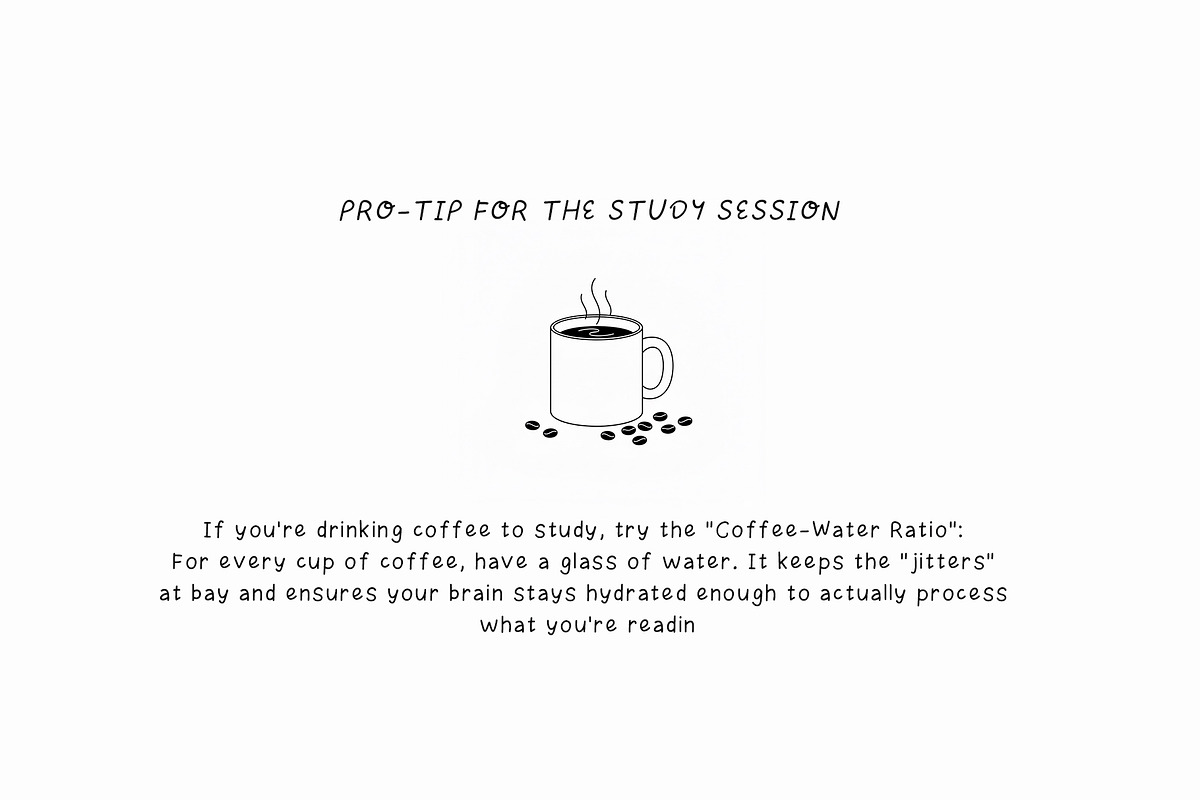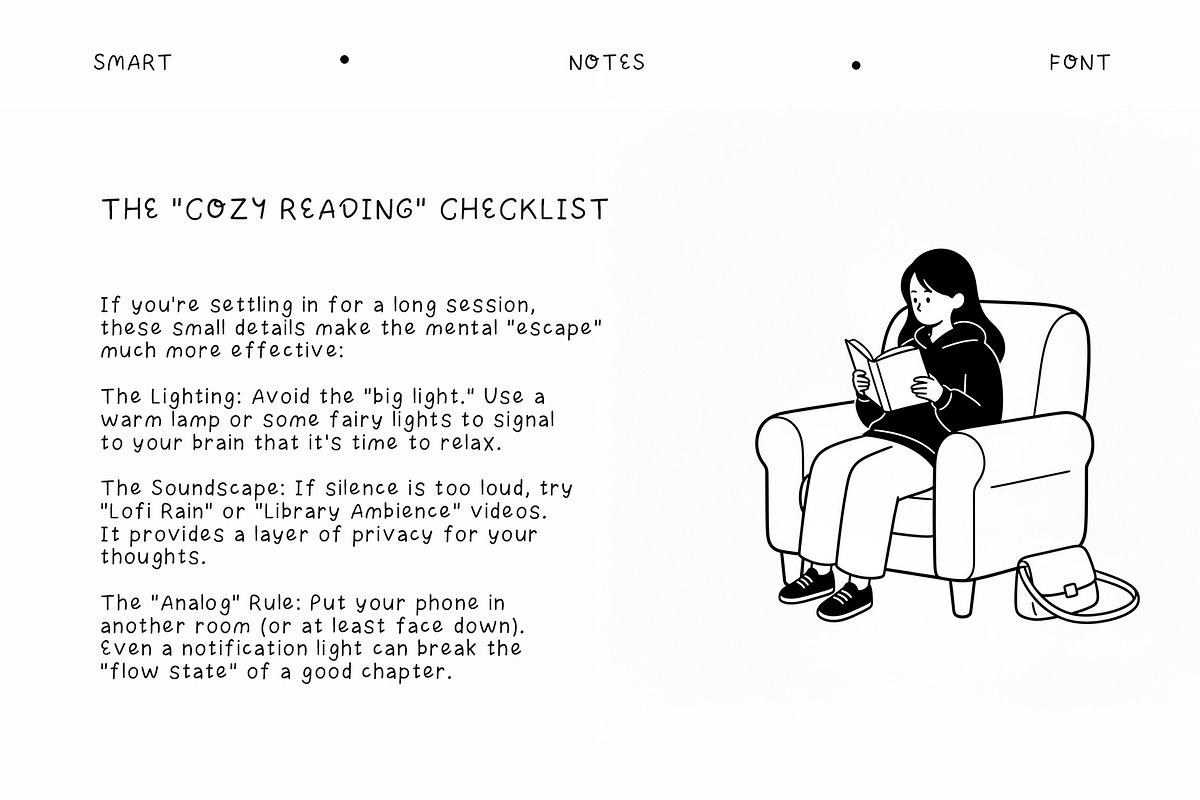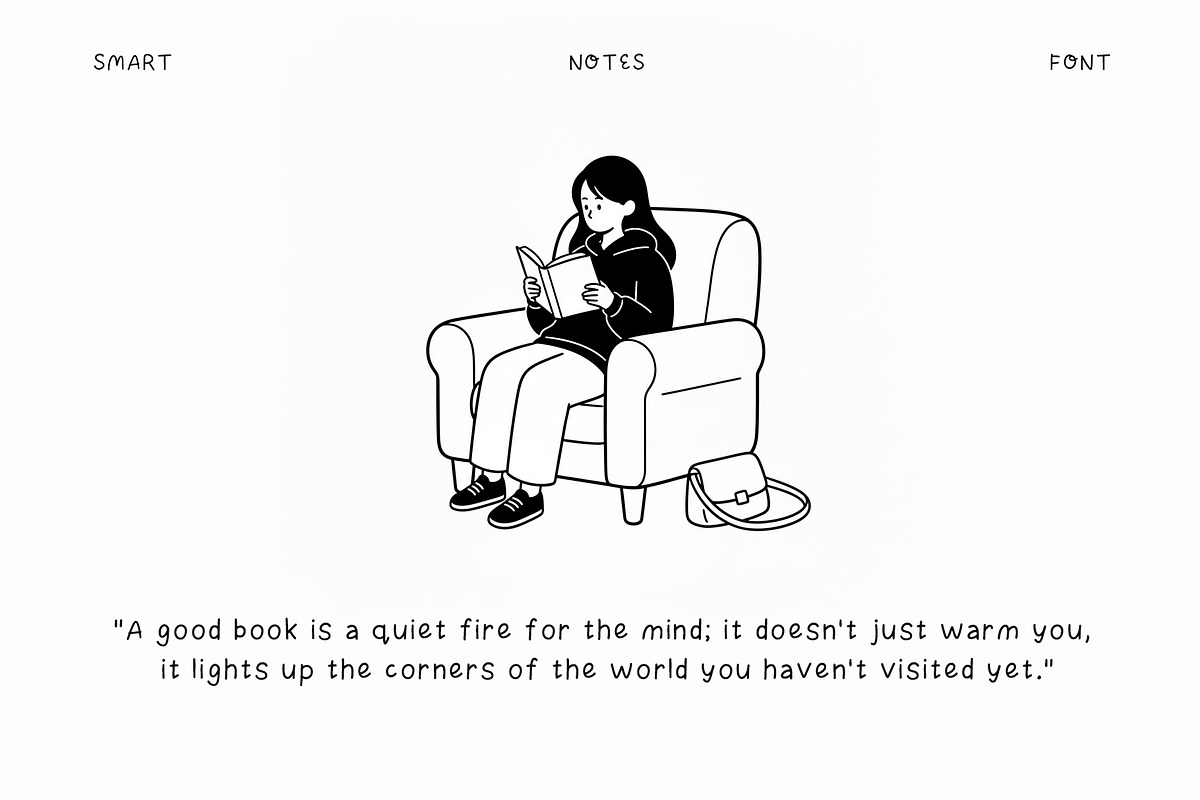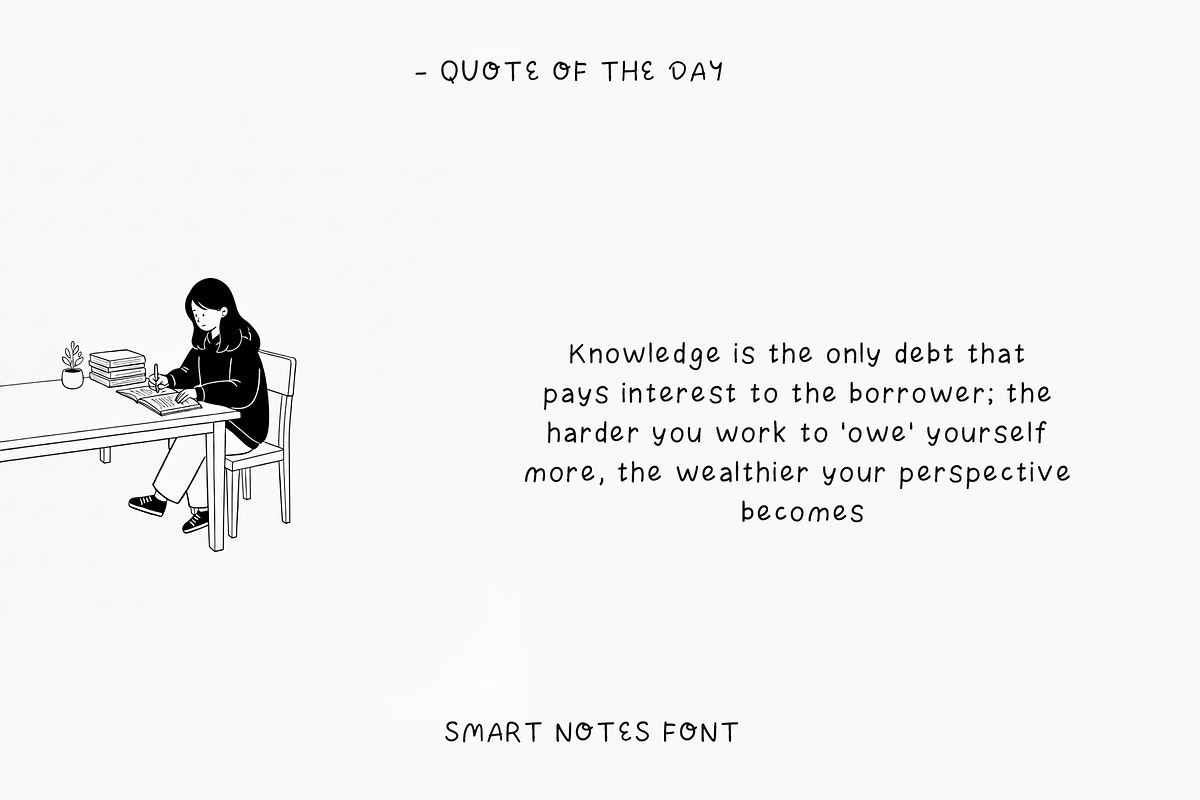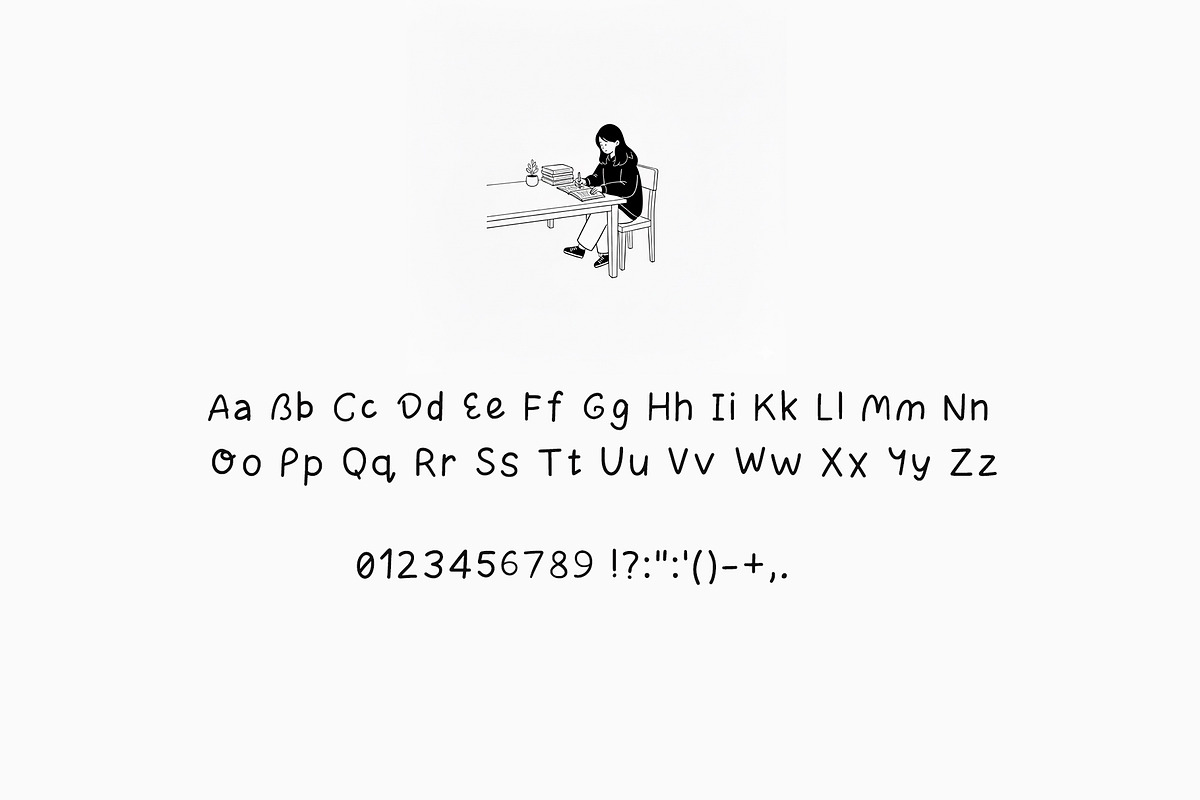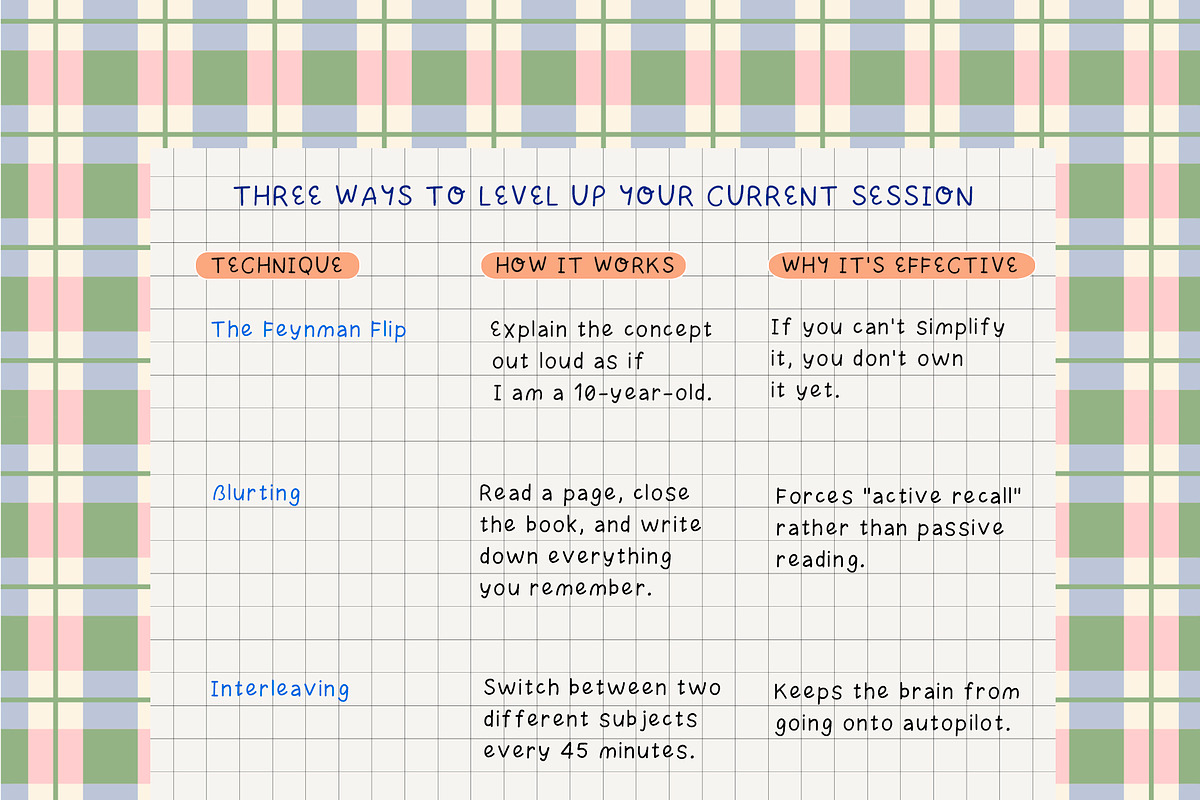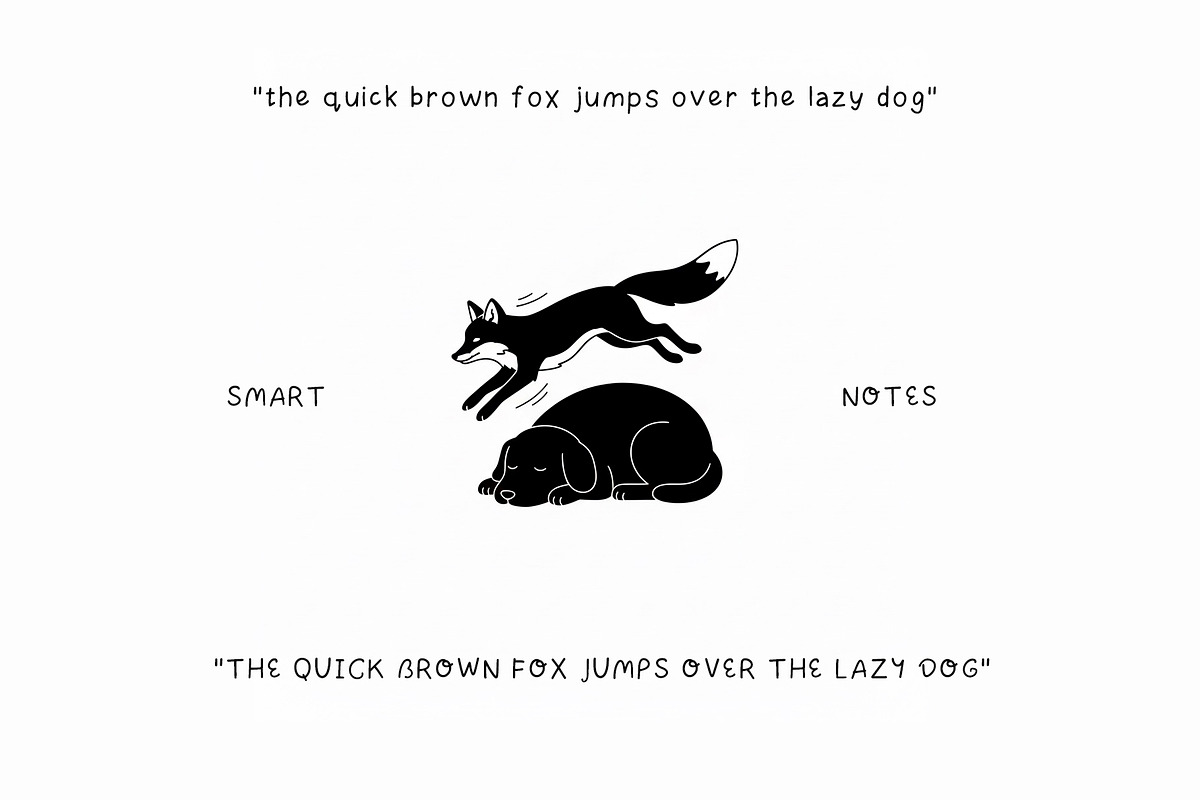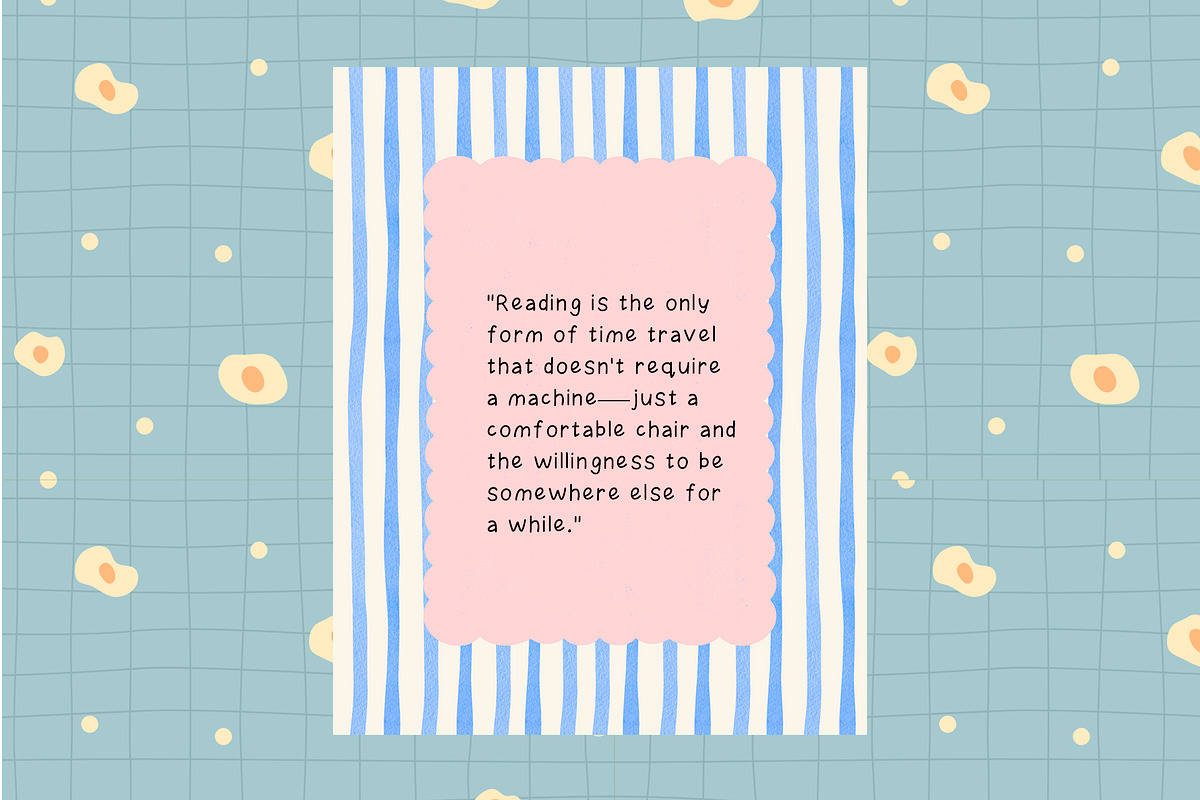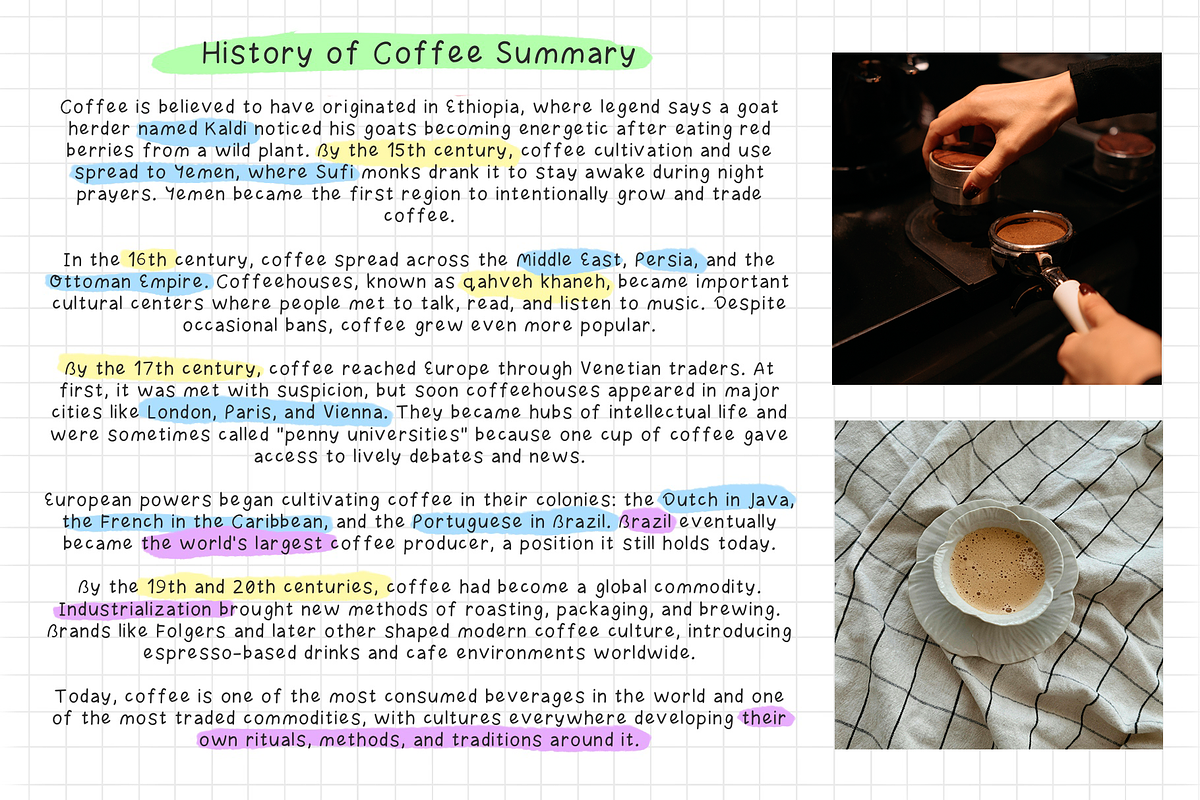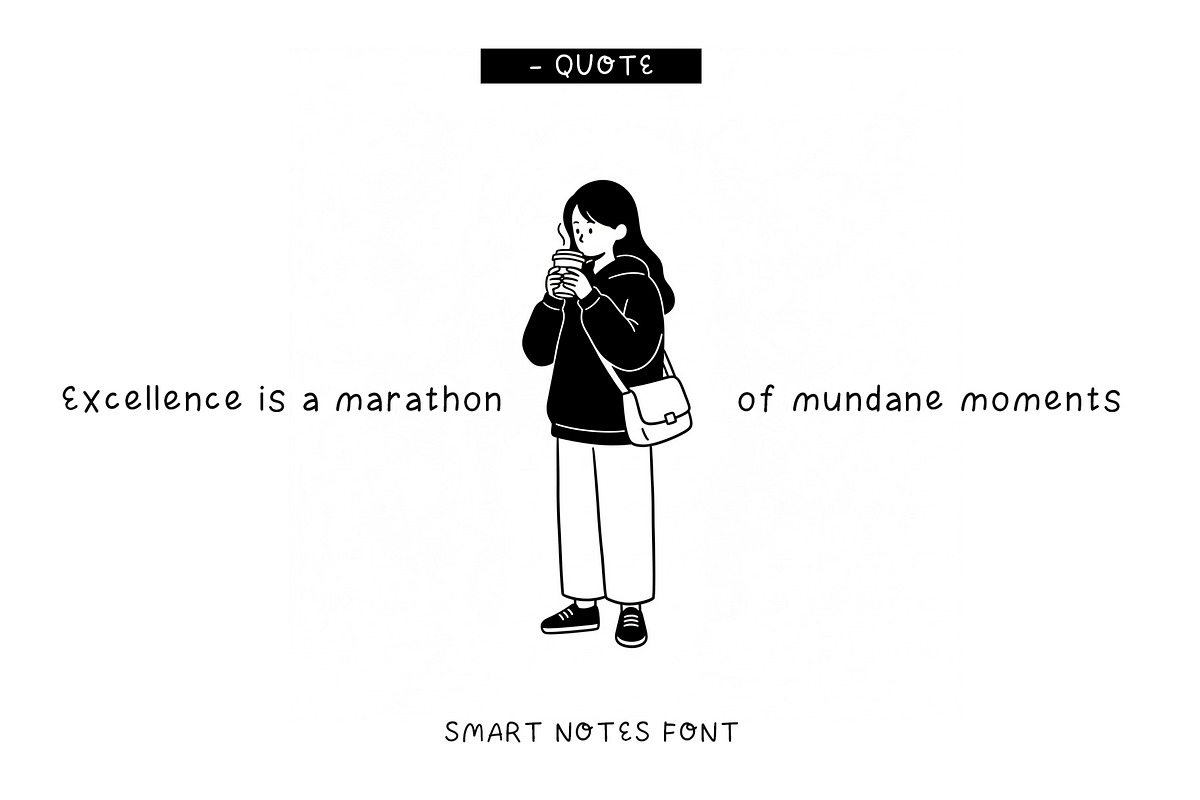
SMART NOTES - notetaking font
It’s the ideal companion for your digital planner, study guides, or minimalist branding projects.
Perfect for Digital Planning: Works seamlessly in GoodNotes, Notability, and OneNote.
Perfect for: Digital planners, iPad study notes, architectural annotations, minimalist logos, and clean social media captions.